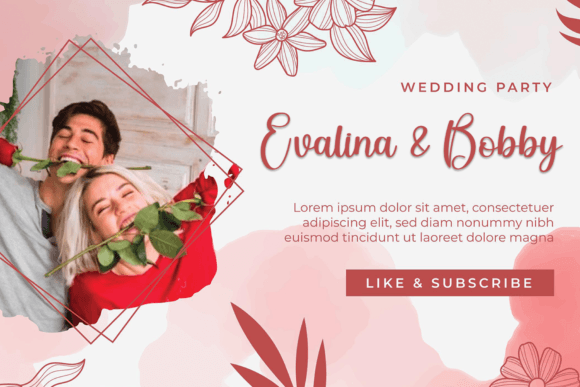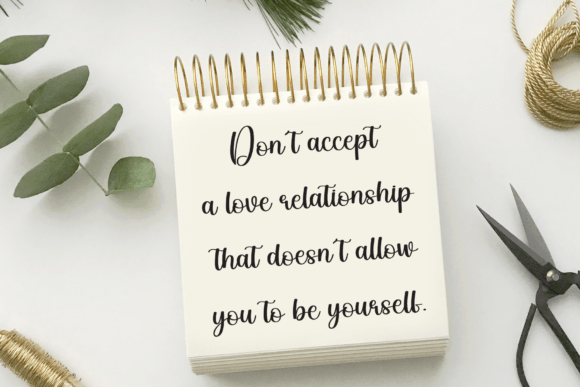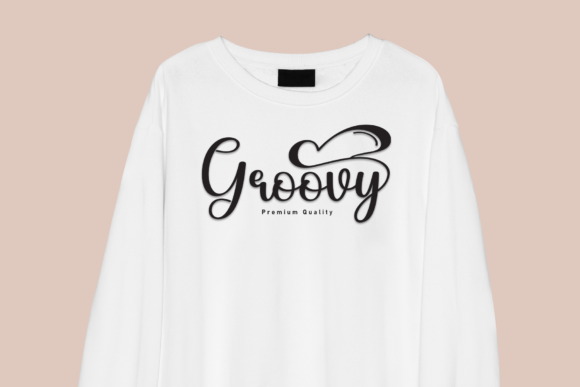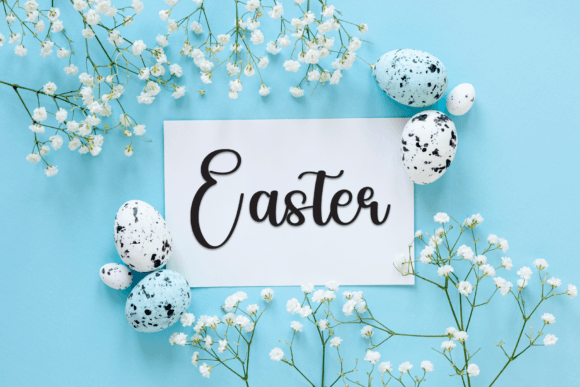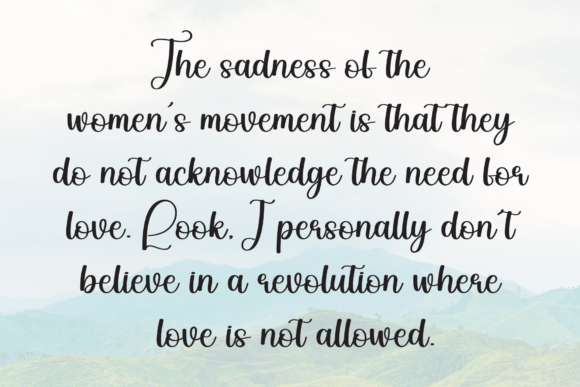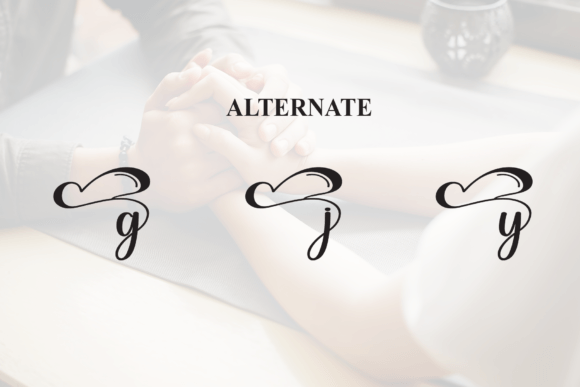
Introducing Deary Font: The Ultimate Display Font for Adding a Touch of Whimsy to Your Designs
Are you looking for a font that can add a playful and fun touch to your artistic creations? Look no further than Deary Font, a charming, handwritten display font that is sure to bring a smile to your face. With its delightful and whimsical design, Deary is the perfect choice for wedding invitations, heartfelt cards, and any other design projects that require a dash of joy and personality.
The Characteristics of Deary Font
Deary Font is a carefully crafted typeface that exudes warmth and friendliness. Its playful and jovial mood makes it an excellent choice for designers and crafters who want to add a personal touch to their work. The font’s sweet and friendly design ensures that it will become a favorite for anyone looking to create artistic pieces that are both fun and engaging.
What Makes Deary Font So Special?
So, what sets Deary Font apart from other display fonts on the market? Here are just a few reasons why Deary is a cut above the rest:
- Unique and Whimsical Design: Deary Font boasts a one-of-a-kind design that is both playful and charming. Its whimsical curves and lines make it perfect for adding a touch of personality to your designs.
- Handwritten with Love: Deary Font is a handwritten display font, which means that it has a personal and human touch that is hard to find in digital fonts.
- Perfect for a Variety of Projects: Whether you’re working on a wedding invitation, a heartfelt card, or a fun design project, Deary Font is the perfect choice. Its versatility and charm make it suitable for a wide range of applications.
How to Use Deary Font in Your Designs
Deary Font is incredibly easy to use, and its versatility makes it perfect for a wide range of design projects. Here are just a few ideas to get you started:
- Wedding Invitations: Add a touch of whimsy and romance to your wedding invitations with Deary Font. Its playful design is sure to set the tone for a fun and memorable wedding celebration.
- Heartfelt Cards: Create personalized and heartfelt cards for special occasions with Deary Font. Its sweet and friendly design makes it perfect for expressing your feelings and emotions.
- Fun Design Projects: Deary Font is perfect for a wide range of fun design projects, from party invitations to DIY crafts. Its playful design is sure to add a touch of joy and personality to your creations.
Tips and Tricks for Getting the Most Out of Deary Font
Here are just a few tips and tricks for getting the most out of Deary Font:
- Experiment with Different Sizes and Colors: Deary Font looks great in a variety of sizes and colors. Experiment with different combinations to find the one that works best for your design.
- Pair it with Other Fonts: Deary Font pairs well with a wide range of other fonts. Try pairing it with a bold font for a fun and playful look, or with a more elegant font for a sophisticated design.
- Use it to Add a Personal Touch: Deary Font is perfect for adding a personal touch to your designs. Use it to create custom headings, titles, and captions that reflect your personality and style.